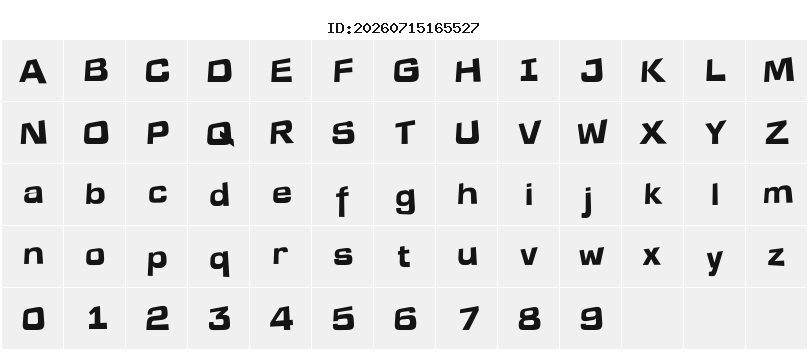
• Designer: W.Chufarofsky & M.Slutsker
a_LineaSans3Drtt.ttf is a modern, elegant sans-serif font designed for ultimate readability and visual harmony. Perfect for branding, headlines, web design, and print materials.